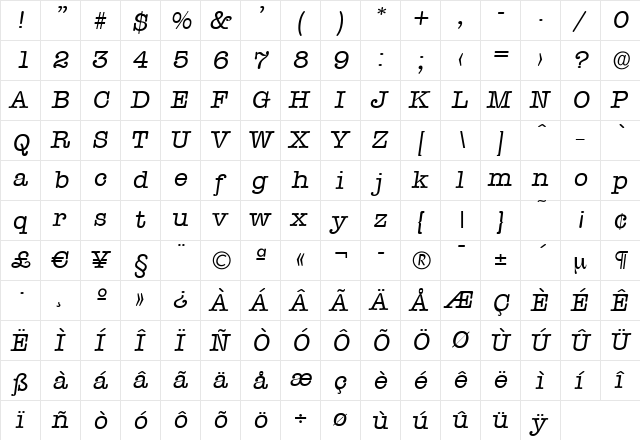
ThorBecker Italic
Design Context for ThorBecker Typeface
ThorBecker takes a measured approach to typography — its balanced proportions and neutral character make it a reliable workhorse for both digital and print work. The slanted form adds forward momentum and visual energy.